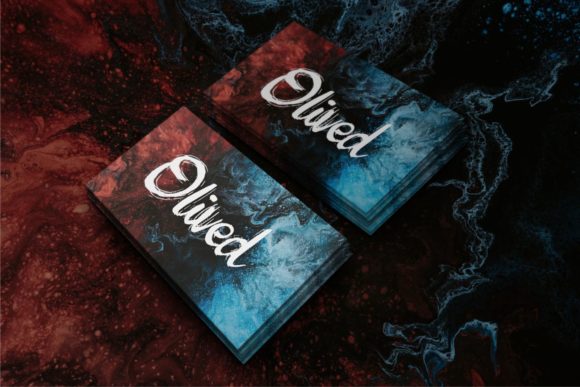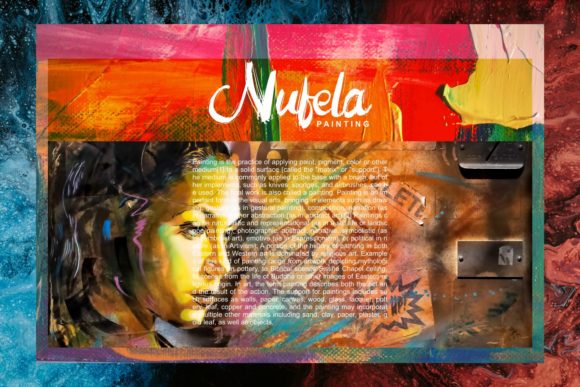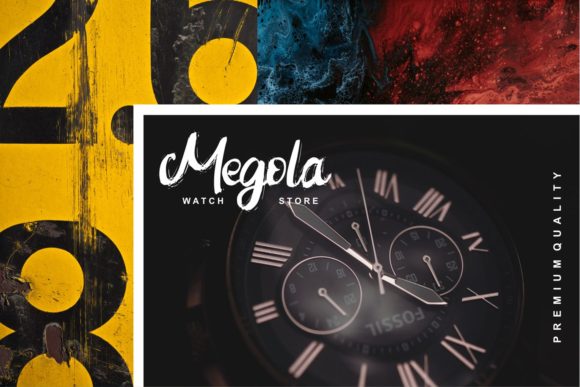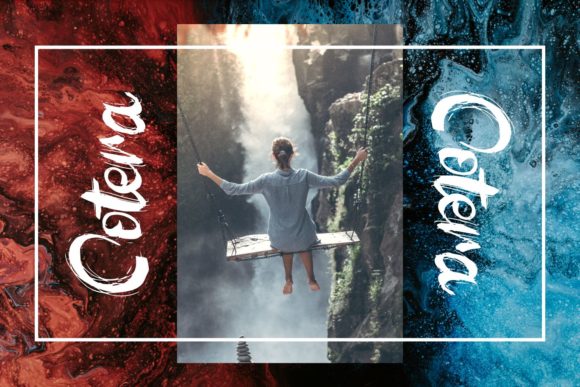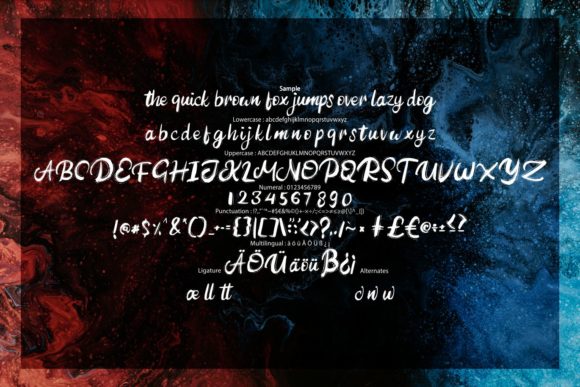
Unlocking the Magic of Handwritten Typography
Have you ever found yourself scribbling away in a journal, lost in the creative process, and suddenly a beautiful phrase or quote emerges from the page? That’s the magic of handwritten typography. It’s a way to add a personal touch, to convey emotions, and to make a lasting impression. And that’s exactly what the Autined Font is all about.
As a designer, you know the importance of choosing the right font to convey your message. The Autined Font is a great handwritten font with a calligraphy style, perfect for greeting cards, branding materials, business cards, quotes, posters, and more! Its unique charm and elegance make it a valuable addition to any design project.
Whether you’re a seasoned designer or a creative enthusiast, the Autined Font is sure to inspire you to new heights. Its versatility and sophistication make it a must-have in your design toolkit. So why not give it a try and see the magic of handwritten typography come alive?
- Unique Characteristics: Autined Font features a unique blend of modern and vintage elements, with a distinctive flair that sets it apart from other fonts.
Autined Font Review
Overall, I’m impressed with the Autined Font, but as with any design choice, it’s not without its flaws. Let’s start with what works well ✨
- Unique and modern aesthetic: The Autined Font has a distinct style that sets it apart from more traditional fonts. Its modern feel makes it perfect for trendy designs and branding.
- High legibility: Despite its unique design, the font is still highly legible, making it suitable for a wide range of applications.
- Wide character set: The font includes a comprehensive set of characters, including international symbols and punctuation marks.
However, there are some limitations ⚠️
- Limited font weights: The Autined Font is available in a limited number of weights, which may not be ideal for designs that require a range of font weights.
- No italic or oblique styles: The font is only available in regular and bold styles, which may not be suitable for designs that require italic or oblique text.
- Potential for overuse: The Autined Font’s unique style may make it prone to overuse, which can lead to a tired and unoriginal design.
Overall, the Autined Font is a solid choice for modern designs, but it’s essential to weigh its limitations against its unique benefits. With careful consideration, it can be a valuable addition to your design toolkit.
Autined Font is perfect for:
1. Creating eye-catching headlines and titles.
2. Adding a touch of elegance and sophistication to your designs.
3. Creating unique and memorable brand identities.
4. Adding visual interest to your social media graphics and posts.